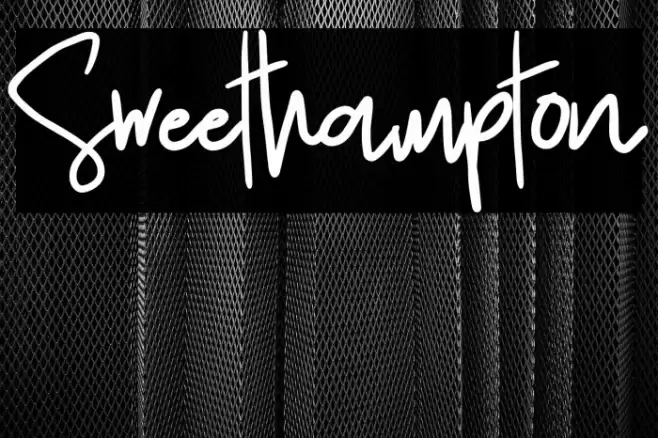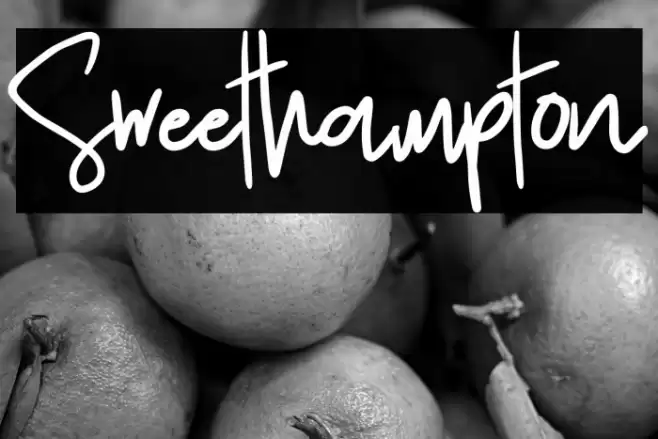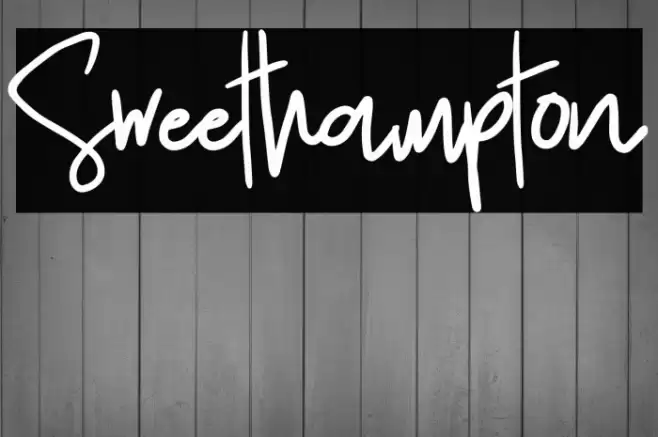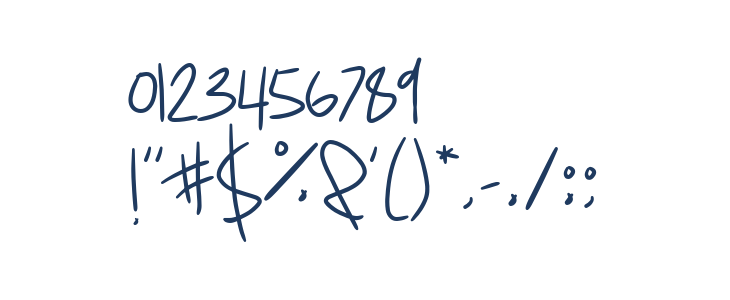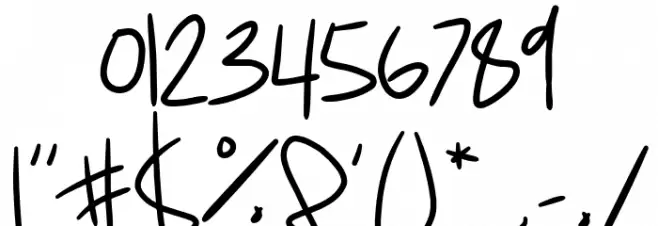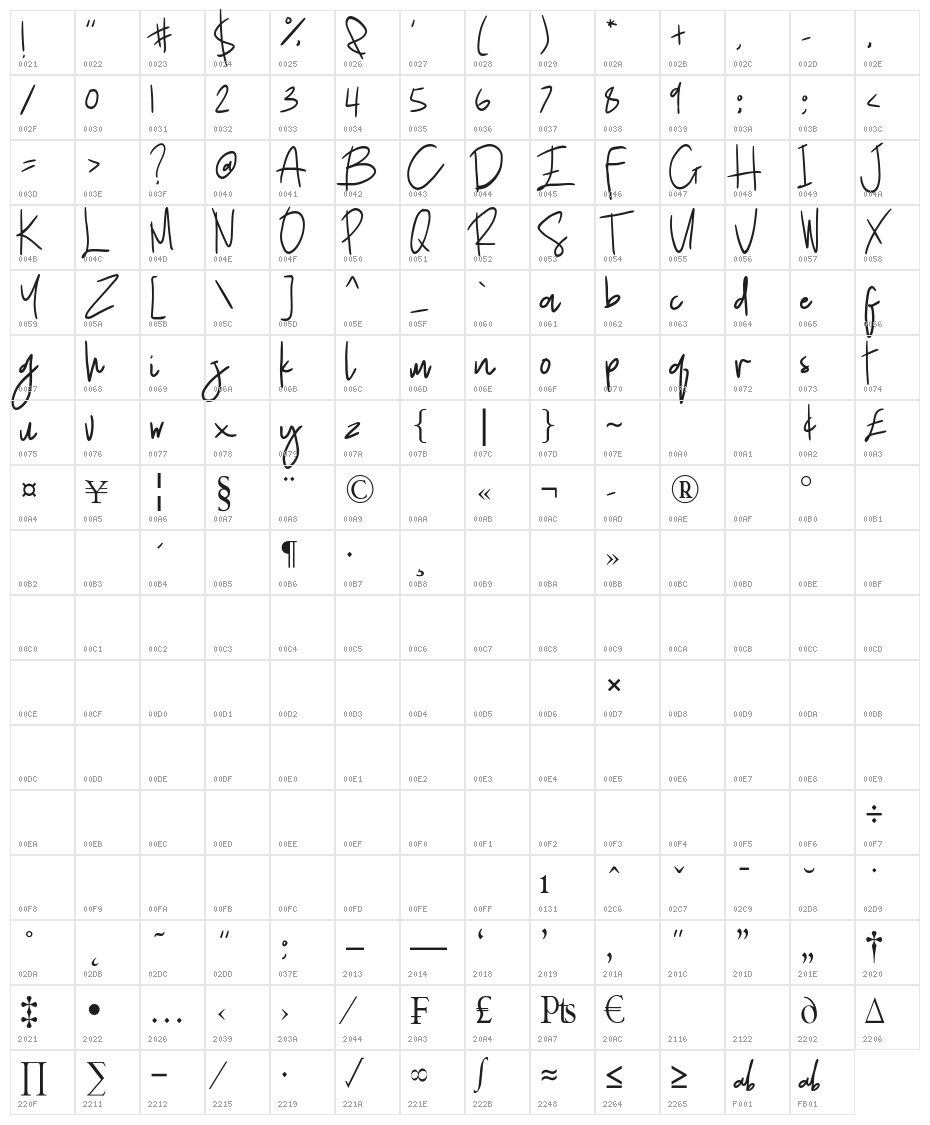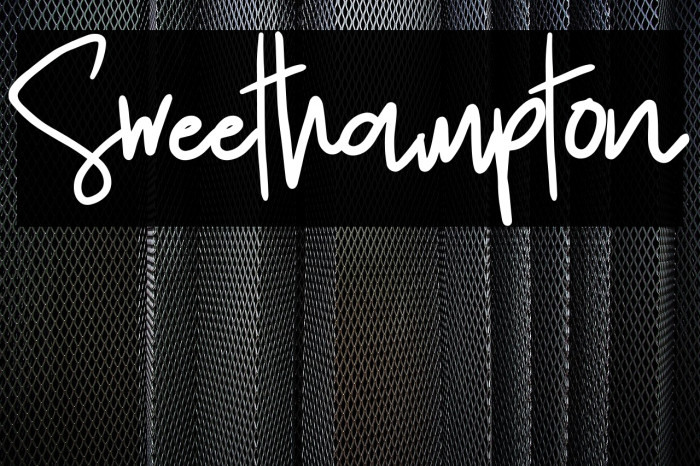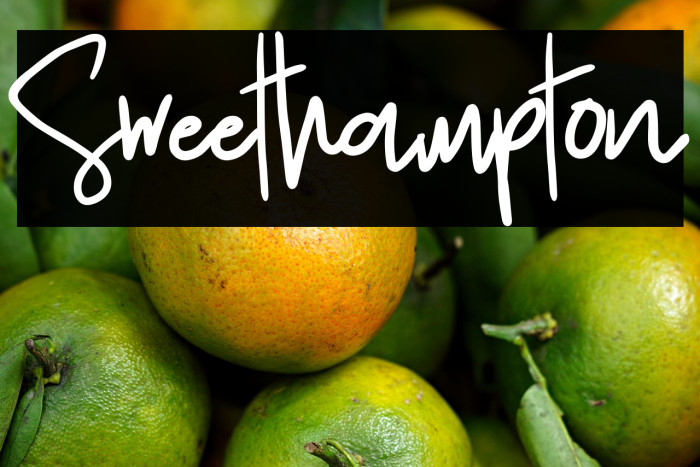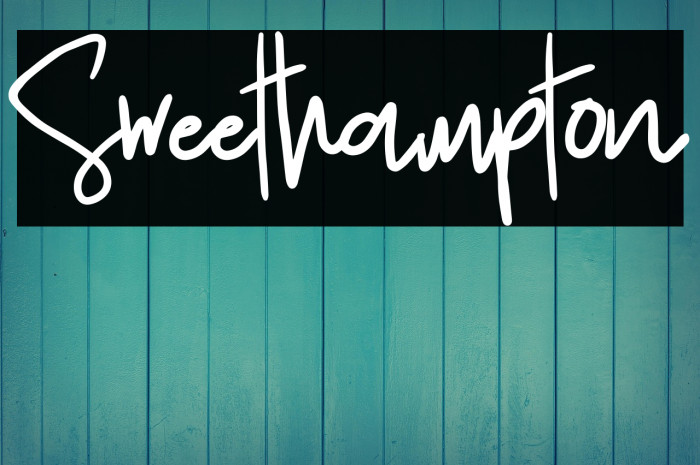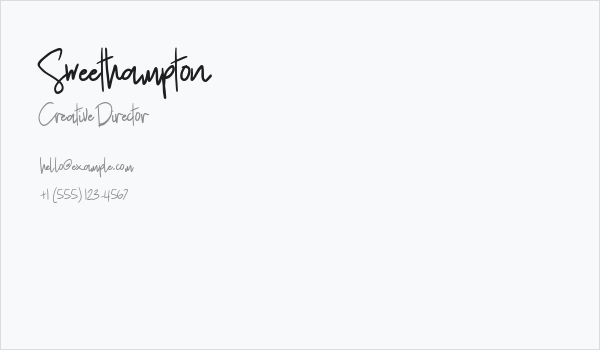
Sweethampton Font
Sweethampton Description
This font exudes a casual, handwritten style with a playful and dynamic character. The letters are free-flowing and slightly irregular, giving it a personal and informal feel. The uppercase and lowercase letters maintain a consistent style, with a noticeable slant that adds to its energetic appearance. The numerals and special characters are crafted with the same lively touch, ensuring uniformity across the set. The strokes vary in thickness, providing a medium contrast that enhances readability while maintaining its artistic flair. This font is perfect for projects that require a touch of personality and creativity.
A lively, handwritten font with a playful and dynamic style from Regular fonts.
- Proposed Projects: Ideal for greeting cards, invitations, personal branding, and creative projects that require a personal touch.
- Overall Style: Casual, Playful
- Use Case: Logos, Invitations, Personal Branding